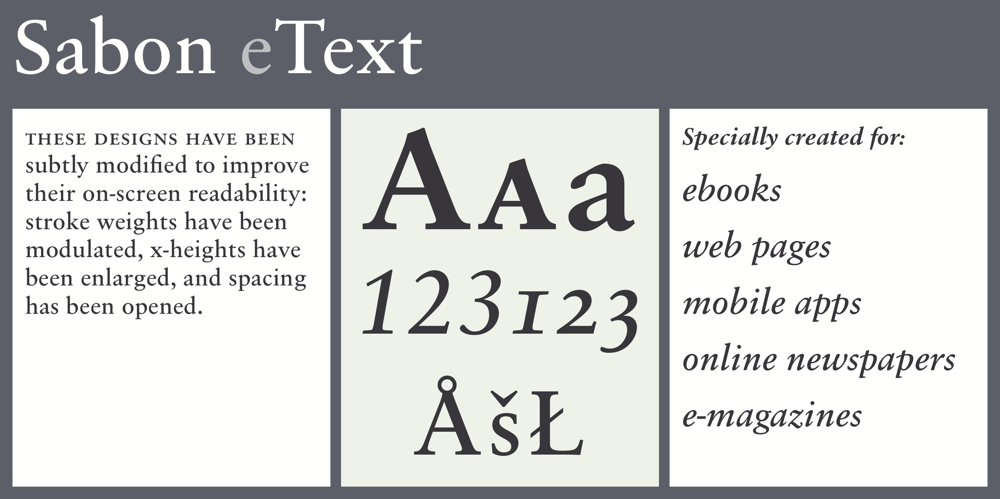
Sabon eText Font Family was designed by Jan Tschichold, Steve Matteson and published by Linotype. Sabon eText contains 4 styles and family package options. A clear and enjoyable reading experience hinges on the legibility of text copy, especially when reading on screen. This is why Monotype has developed the eText collection of fonts specifically tailored for the text-heavy display environments of e-readers, tablets, mobile devices, and the Web.